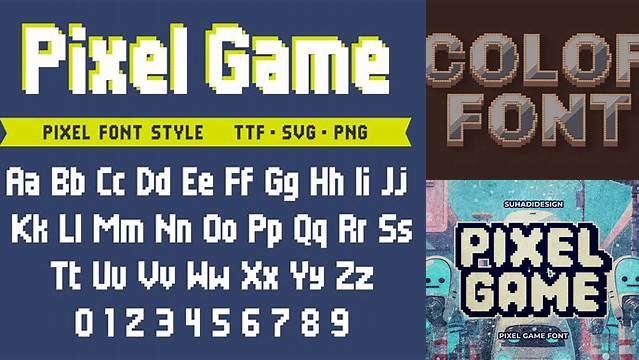
Free Pixel Art Fonts For Commercial Use: Your Guide
Hey guys! Are you looking to add a retro vibe to your projects? Do you need a cool pixel art font but don't want to break the bank? Well, you're in luck! This guide is all about pixel art fonts that are free for commercial use. We'll dive into what makes these fonts awesome, where to find them, and how to use them to create some seriously eye-catching designs. So, buckle up and get ready to pixelate your world!
What Exactly is Pixel Art? And Why is it So Awesome?
First things first, let's make sure we're all on the same page. Pixel art is a form of digital art created using pixels, the tiny squares that make up an image on your screen. Think of the classic video games from the 80s and 90s – that's pixel art! The charm of pixel art lies in its simplicity and nostalgia. It evokes a sense of retro coolness and can instantly transport you back to the golden age of gaming. That's why it's still incredibly popular today! Pixel art isn't just for video games anymore. It's used in a variety of creative fields, including graphic design, web design, and even marketing. Why? Because it's eye-catching, memorable, and versatile. It's a great way to stand out from the crowd and add a unique touch to your work. The best part is that it's relatively easy to create, especially when you're using a great pixel art font. Pixel art fonts are designed to mimic the look of pixelated graphics. They're typically blocky, with each letter and number made up of distinct pixels. They're perfect for creating a retro aesthetic or adding a playful, fun vibe to your designs. Whether you're working on a game, a website, a logo, or a social media post, a pixel art font can make a huge difference. It can give your project a sense of personality and character that's hard to achieve with other font styles. So, why not give it a shot? You might be surprised at how much you love it! Choosing the right pixel art font is key to achieving the desired look. There are tons of options out there, each with its own unique style and personality. Some fonts are blockier and more angular, while others are smoother and more rounded. Some are inspired by classic video games, while others have a more modern feel. It all depends on the look you're going for. The good news is that there are plenty of free pixel art fonts available for commercial use, so you don't have to spend a fortune to get started. Just be sure to check the licensing terms before you use a font, to make sure you're allowed to use it for your specific project. With a little bit of creativity and the right pixel art font, you can create some truly amazing designs that will make your audience say, "Wow!"
When browsing for fonts, pay attention to the details. Look at the character set to make sure it includes the symbols and characters you need. Some fonts only include basic Latin characters, while others have a wider range of support. Also, take note of the font's style and weight. Do you want a bold font or a more delicate one? A single font or a family with multiple weights? The best pixel art fonts are those that are designed with versatility in mind, allowing you to use them in various ways. Always read the license agreement carefully to understand the terms of use. Some fonts may require attribution, while others may have restrictions on how you can use them. Knowing the license agreement will save you from any trouble later on. Finally, always have fun and be creative! Experiment with different fonts and styles to find the perfect one for your project. Pixel art fonts can add a unique and playful touch to any design, so don't be afraid to try something new. With a little bit of research, you'll be well on your way to finding the perfect font for your next project!
Tips and Tricks for Using Pixel Art Fonts Effectively
Alright, now that you've found some awesome free pixel art fonts, let's talk about how to use them like a pro. Here are some tips and tricks to help you get the most out of these pixelated beauties.
- Choose the Right Font: Not all pixel art fonts are created equal. Some are better suited for headlines, while others work well for body text. Consider the overall style of your project and choose a font that complements it. Think about the mood you want to create. Do you want something playful and energetic, or something more retro and nostalgic? The font you choose should reflect this mood.
- Adjust the Size and Spacing: Pixel art fonts often look best at larger sizes, so experiment with different font sizes to find what works best. Adjust the letter spacing (kerning) and line spacing (leading) to ensure the text is easy to read. Too much or too little spacing can make the text look cluttered or hard to understand. Don't be afraid to experiment with different spacing settings until you find what looks best.
Conclusion: Get Pixelating!
So there you have it, guys! Your guide to free pixel art fonts for commercial use. With these resources and tips, you're well-equipped to add a retro touch to your designs. Remember to always double-check the licensing terms and have fun creating! Go out there and start pixelating your projects. Happy designing!